Looking for the best calligraphy fonts? We’ve got just the thing you need!
Calligraphy is an art of writing that comprises different strokes and brushes and is bursting with fine-art design writing. Years ago, this art of writing was usually used for wedding invitations. Still, recently, more and more design elements in the internet space are using calligraphic fonts as part of their full-packed layout to differentiate their products and make them look appealing.
Calligraphy alphabets and styles are usually preferred for websites or any design asset related to something that needs a personal touch—like a wedding invitation design or a personal letter. These typefaces are creative and perfect for such projects.
The correct letter font can be an influential asset in your design toolbox – it can portray a strong brand message and evoke powerful emotions from your audience. But, with the overwhelming choice of diverse calligraphy font downloads available, how do you know the perfect calligraphy design for you?
Best Calligraphy Fonts To Try Now
1. Edwardian Script ITC
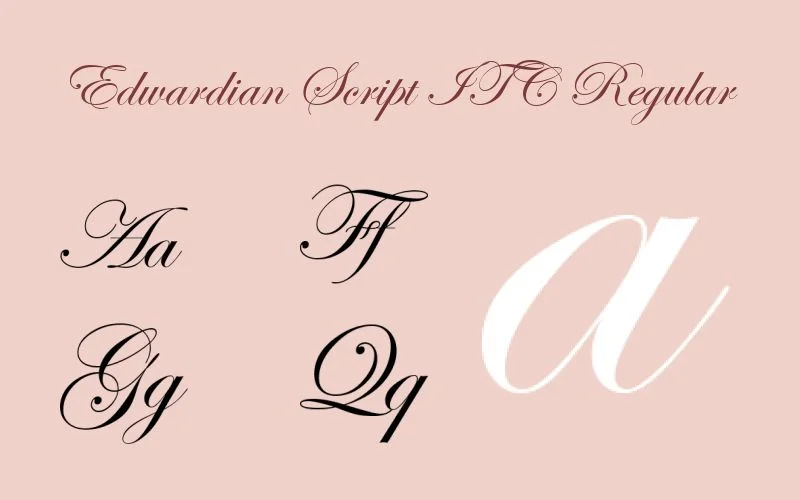
Edwardian Script ITC is one of the most stylish and best calligraphy fonts, with many flourishes and cursive details. It has sophisticated letterforms and characters that look like pointed steel pens.
2. Ecosmith: Best Font For Calligraphy
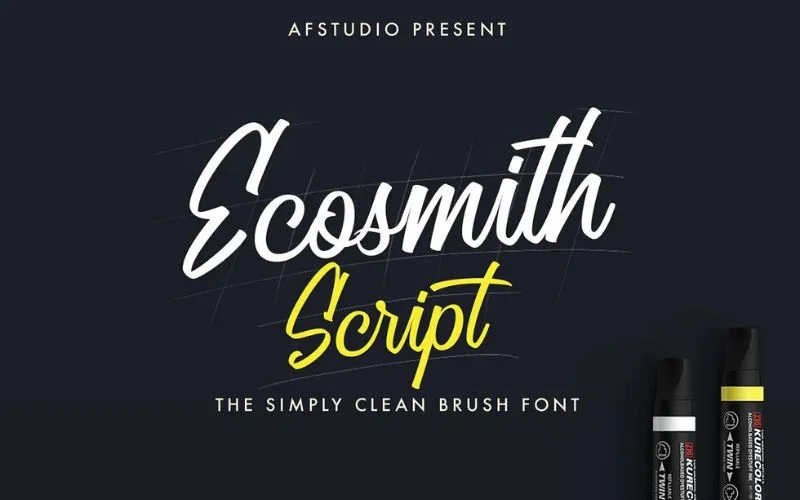
Ecosmith is the best font for calligraphy writing and is a perfect blend of classic and modern lettering. Created with a 45-degree, thin brush stroke, it can dress up a design or keep things playful. The consistency of the brush strokes makes for a very clean cursive font. This calligraphic font is a must for apparel and display designs. You can even use it as a logotype!
3. Champignon
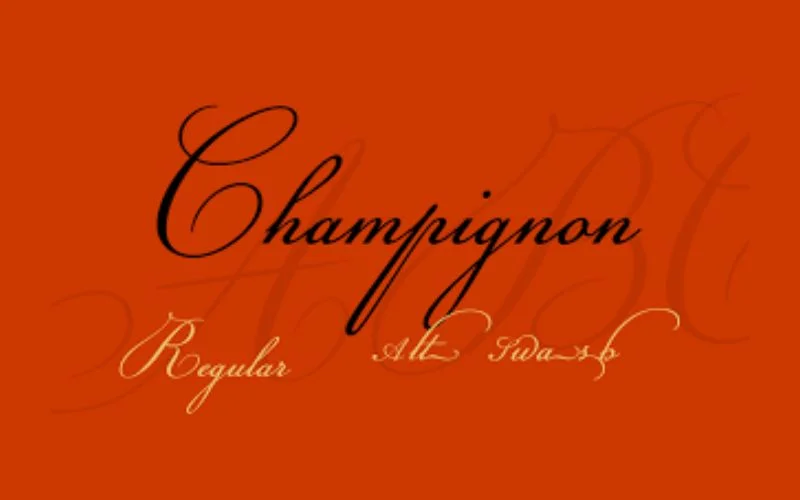
A classic feminine font with dainty thin strokes. Best used for large to medium text sizes and would be perfect for headings or invitations.
4. Euphoria Script: Best Calligraphy Fonts
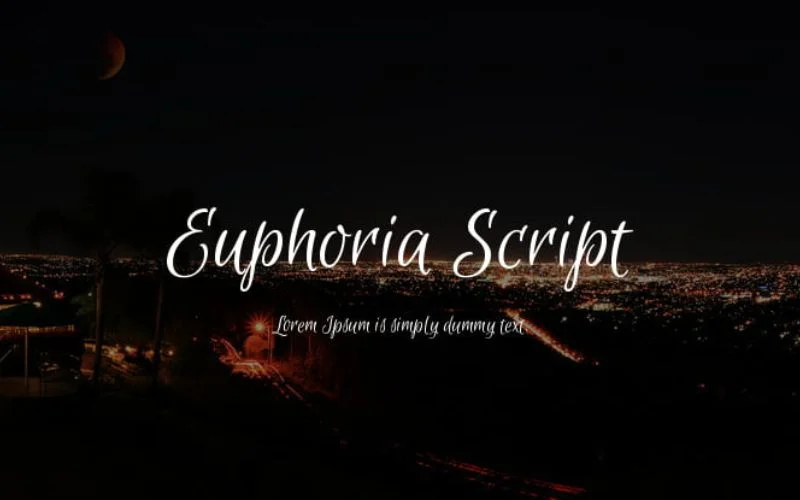
This is one of the most casual and best calligraphy fonts. Its unconnected letters make it highly legible and ideally suited for titles and short lines of text, especially those related to food or fashion.
5. Poem Script Pro: Popular Calligraphy Font
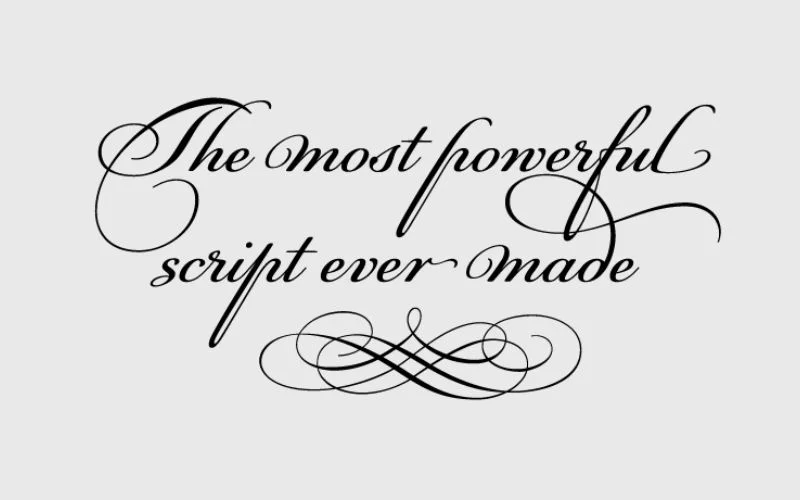
Poem Script Pro is one of the most stylish calligraphic font styles ever created. It has unique strokes and thin cursive details. This is a collection of American pen script styles from the 19th century, and it is one of the most used fonts for poems.
6. Playlist
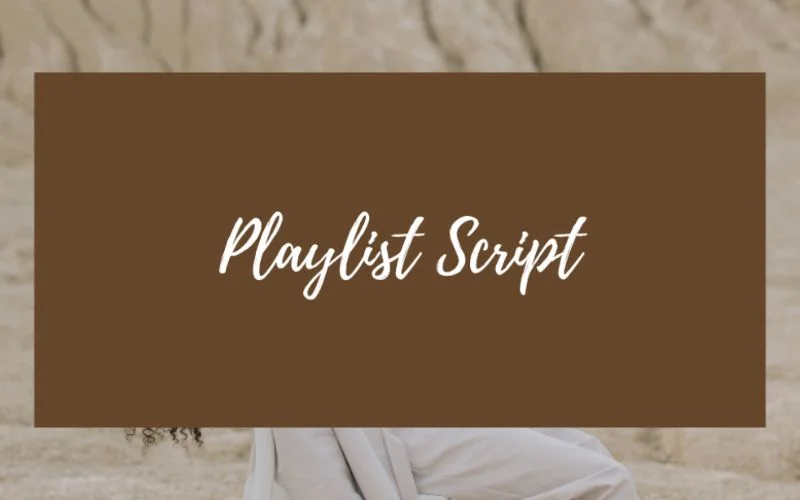
by Artimasa Studio is a perfectly imperfect hand-drawn cool font with dry brush styles. Playlist font contains three styles: Script, Caps, and Ornament, which you can combine to create beautiful designs. Playlist Free Font can be used for any purpose, personal and commercial.
7. Samantha Upright Pro
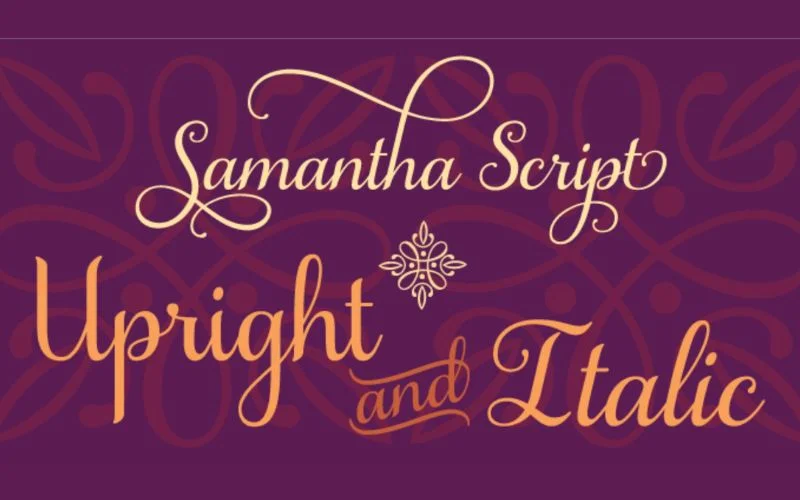
Samantha Upright Pro is a stylish, popular calligraphy font style with many connected strokes, curls, and beautiful flourishes. It offers over 2,700 glyphs that are perfect for wedding invitations and other event invitations.
8. Gardenia
Gardenia is one of the best calligraphy fonts and has a sweet, upbeat personality. It has neat and graceful lines that vary in thickness, which gives it a mature air despite having a stylistic loop here and there. The tight tracking makes it a great cursive font solution for most projects, especially as headlines, to capture your audience’s attention.
9. Jenna Sue
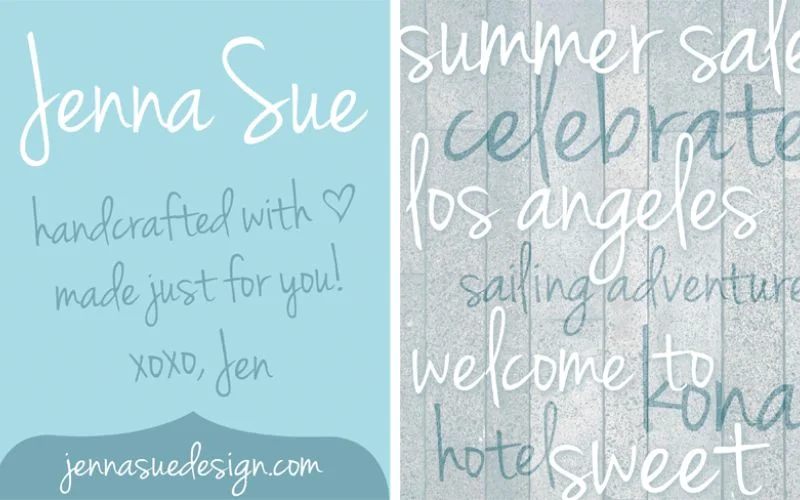
by Jenna Sue Design is a top calligraphy font and a casual handwritten font that is free for personal AND commercial use. Since its release in January 2012, the font has received over 502k downloads. This premium & elegant font includes a complete set of upper and lowercase letters, numbers and special characters.
10. Sacramento
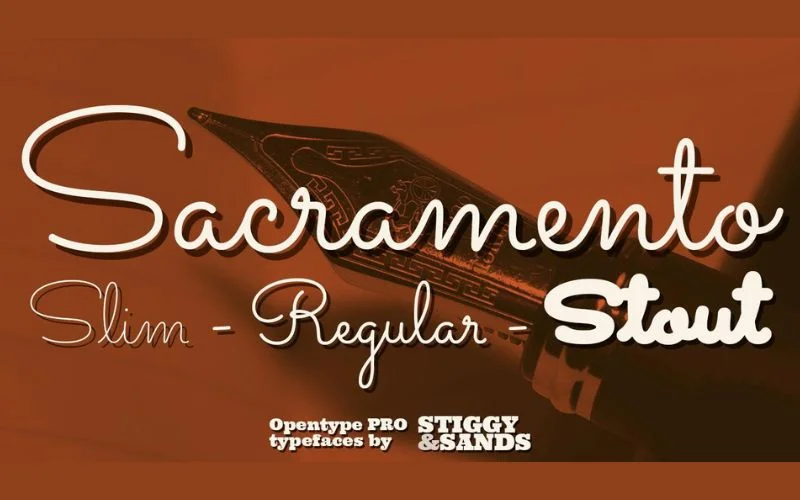
Sacramento by Astigmatic. The font’s author, Brian J. Bonislawsky, comments that Sacramento is a monoline, semi-connected script inspired by hand-lettering artist brochure work of the 1950s and 1960s. It stands on a thin line between formal and casual lettering styles, yet it has a commanding presence for headlines and titles.
11. Lobster Two
Lobster Two by Impallari Type offers four styles: Regular, Italic, Bold, and Bold Italic. The retro font has over 350 glyphs, including a full set of upper- and lowercase letters, numbers, and special characters.
12. PF Champion Script Pro: Cursive Calligraphy Font
PF Champion Script Pro is a beautiful font family that offers a variety of advanced details and a stylish approach. It looks very powerful and beautiful, with uniform letterforms that offer many curls of capital and small letters.
13. French Kiss
French Kiss differs entirely from most calligraphic fonts since it has broader strokes and separated letters. It doesn’t have many cursive details and flourishes, but it still looks classical and has a beautiful font perfect for event invitations.
14. Fabfelt Script: Best Calligraphy Fonts
This monoline font with a retro feel would be perfect for branding and headings. Retro-style fonts are trendy and pair well with an elegant serif or minimal sans-serif font to create high-impact designs.
15. Dancing Script OT
by Impallari Type. The feminine & formal calligraphy font has 236 glyphs. It includes complete upper and lowercase letters, numbers, and special characters.
16. Allura
by TypeSETit. The elegant & formal style font has 385 glyphs, including a complete set of upper and lowercase letters, numbers and various special characters.
17. Nickainley
Nickainley by Seniors Studio is a monoline script handwriting font with a classic and vintage style in uppercase and lowercase characters, numerals, and punctuation.
18. Monte Carlo: Professional Calligraphy Font
Monte Carlo is a traditional calligraphic font with many cursive details and swashes in one style. This beautiful script font, designed by Rob Leuschke, has many flourishes and ornate details that complement each other, making it perfect for wedding invitations.
19. Bellissima Script Pro
Bellissima Script Pro is inspired by the library of Alex Trochut’s grandfather, created by Ramon Stirling in 1844. This beautiful calligraphic font is similar to other famous wedding calligraphy fonts, such as Burgues and Compendium, but it does not belong to the same font family.
20. Hiatus
Hiatus is a warmer approach for formal and classical scripts. It lets you create unique combinations of letterforms with enough letter spacing in capital and small letters. This calligraphic font is the best font style for any occasion.
21. Germanica
Something a bit different, this Gothic and medieval-inspired font comes in many weights and will add character and a traditional feel to your work.
22. Grand Hotel
A condensed upright connecting script with a classic vibe, this font would pair well with a minimal sans serif font to create powerful, engaging designs. Its monoline weight is perfect for high legibility.
23. Quarzo
Quarzo is a flexible and stylish calligraphic font with detailed, rounded angles. Its strokes are consistent, and the spacing is generous, making it look beautiful when printed. This font can be perfect for wedding invitations and similar events.
24. Journal: Top Calligraphy Font
Journal, a professional calligraphy font by Hans Gerhard Meier, aka Fontourist, contains 236 glyphs, including a full set of upper- and lowercase letters, numbers, and various special characters.
25. Carolyna Pro Black
Carolyna Pro Black is a bolder version of Carolyna Pro that looks elegant and stylish. This calligraphic font emphasises modern handwriting that can be read easily, even from afar. It looks handwritten but has lots of cursive details.
Also check out: Best Fonts & Font Families Pack
26. Hello Stockholm
Stockholm is a fun, modern, brushed cursive calligraphy font with a subtle signature-style vibe. It’s minus the smeary, unreadable, heavy slant that characterizes signature fonts. Its bold, unique personality makes it great for branding, wedding invitations, t-shirt designs, and Instagram posts.
27. Burgues Script: Top Cursive Calligraphy Font
Burgues Script has been a famous font for over 100 years, inspiring many penmanship schools. This beautiful calligraphic font was designed by the renowned and skilful penman Louis Madarasz, known for his contribution to this art.
28. Aphrodite Slim Pro
Aphrodite Slim Pro is part of the calligraphic font family of Aphrodite Pro but has more detailed characters. This calligraphy font has over 1,000 glyphs, and the swashes are very stylish, with many curves and flourishes created by Maximiliano Sproviero and Sabrina Mariela Lopez.
29. Lamar Pen
Lamar Pen is a classic and stunning calligraphy font style Mirabeau Buonaparte Lamar uses. His stylish and elegant handwriting results in a remarkable calligraphic font that looks awesome when letters are combined.